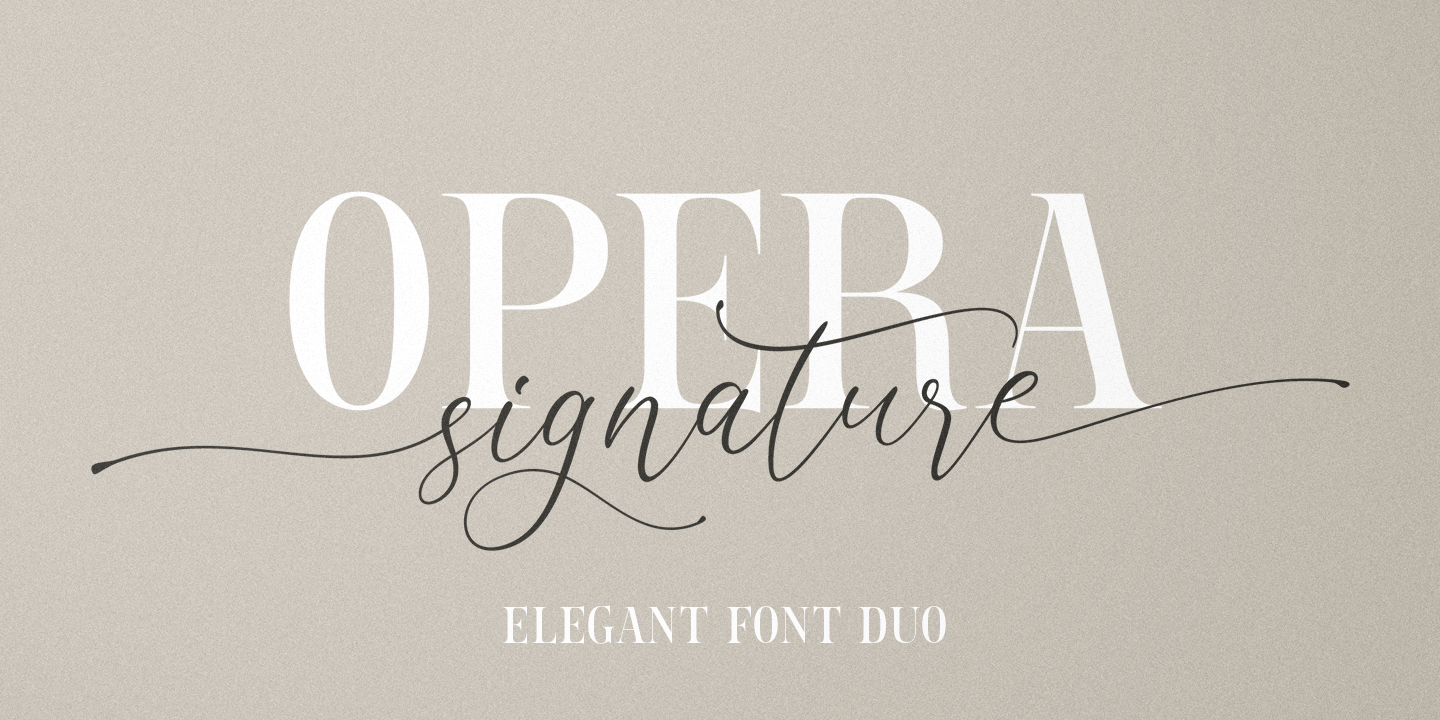
Opera Signature Font is perfect for classical music venues, opera house signage, theatrical performance posters, luxury concert programs, cultural institution branding, classical music album covers, fine arts festivals, prestigious award ceremonies, elegant invitations, high-end cultural events, and any project that requires dramatic elegance with sophisticated theatrical character.
What makes Opera Signature Font exciting is its magnificent ability to capture the grandeur and emotional intensity of operatic performances through flowing script letterforms that embody the passion and artistry of classical vocal traditions. This dramatic typeface features elegant flourishes with theatrical flair that evoke the sweeping melodies and powerful emotions of opera stages. The font's operatic character adds instant cultural sophistication and artistic prestige to any design, making it perfect for brands celebrating classical arts and theatrical excellence.
Opera Signature Font comes in multiple font families including Regular, Bold, Light, Flourished, Condensed, and Theatrical variations, providing designers with comprehensive options to create dramatic compositions and achieve the perfect operatic aesthetic for culturally-focused design projects.
Whether you're developing classical arts branding, creating theatrical event materials, or designing prestigious cultural campaigns, Opera Signature Font Free Download offers the perfect solution for projects demanding authentic operatic character and theatrical sophistication. This elegant typeface excels in display applications where dramatic presence is essential, ensuring your designs communicate classical artistry and cultural refinement. The flowing script and operatic styling of Opera Signature Font make it an indispensable tool for designers who prioritize classical arts, theatrical drama, and sophisticated cultural expression in their typographic selections.